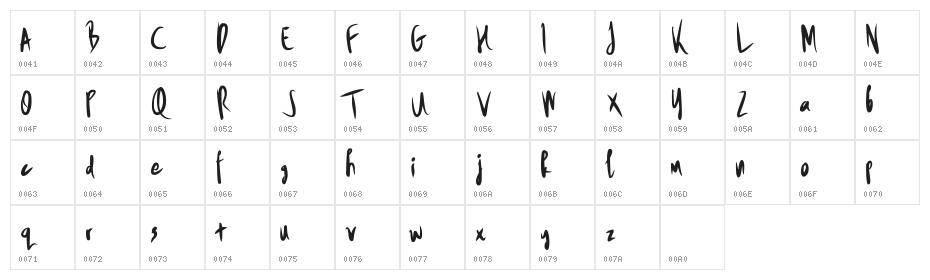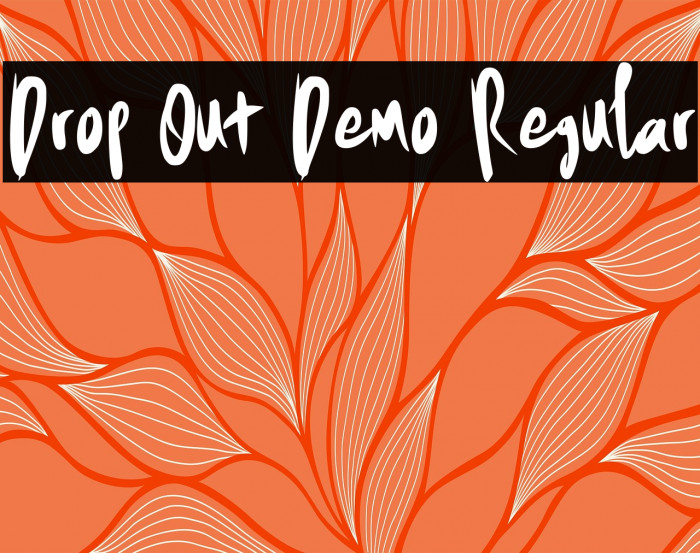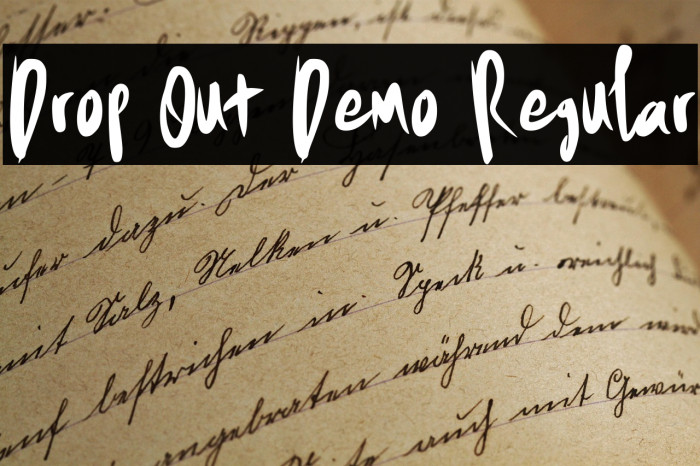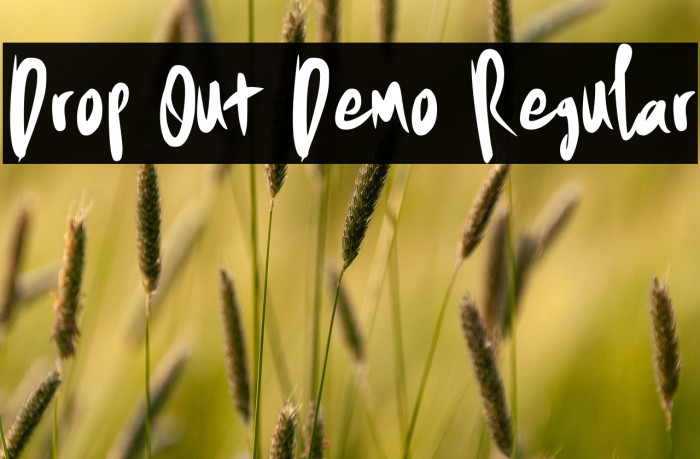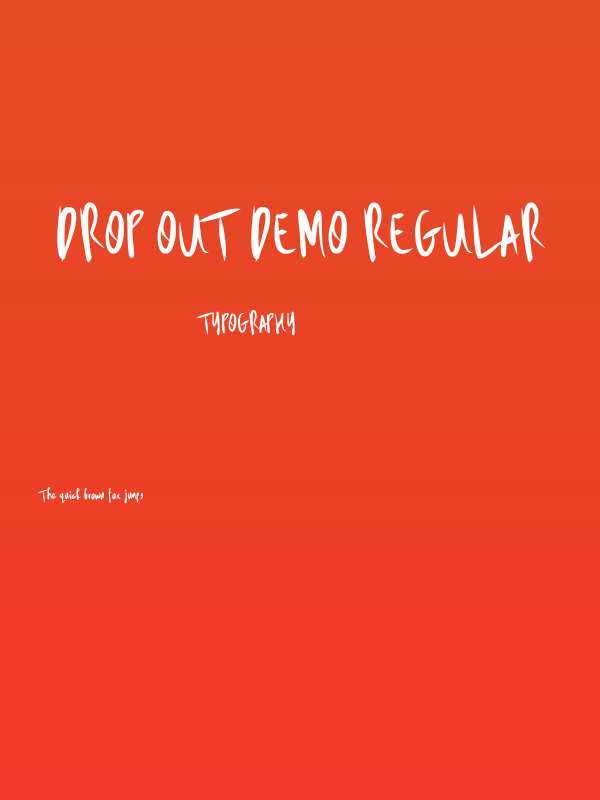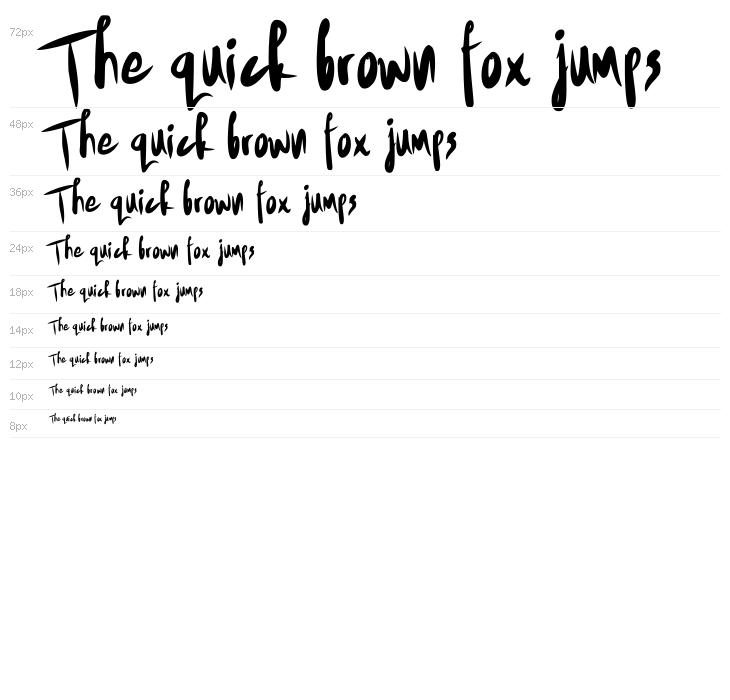
Drop Out Demo Regular Font
Drop Out Demo Regular Description
This font features a dynamic and expressive handwritten style, characterized by its bold and fluid strokes. The letters exhibit a playful and artistic flair, with varying thickness and a slightly irregular baseline that adds to its charm. The uppercase and lowercase letters maintain a consistent style, while the numbers and special characters complement the overall aesthetic. This font is ideal for projects that require a personal touch or a creative, informal vibe.
| Use Case | Logos, Headlines, Artistic projects |
| Proposed Projects | Ideal for greeting cards, posters, artistic branding, and creative social media graphics. |